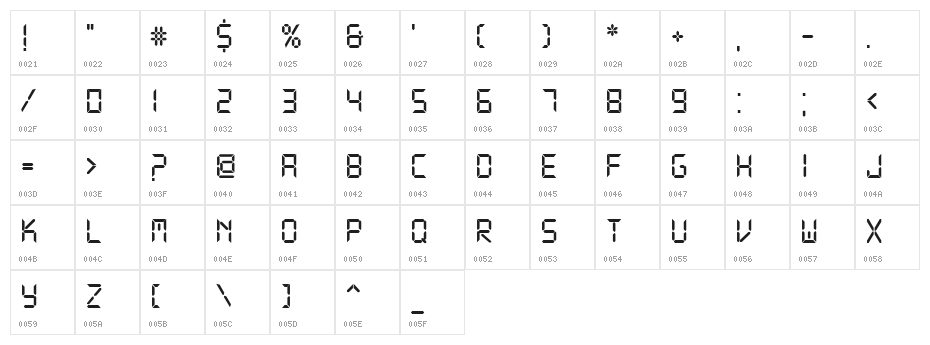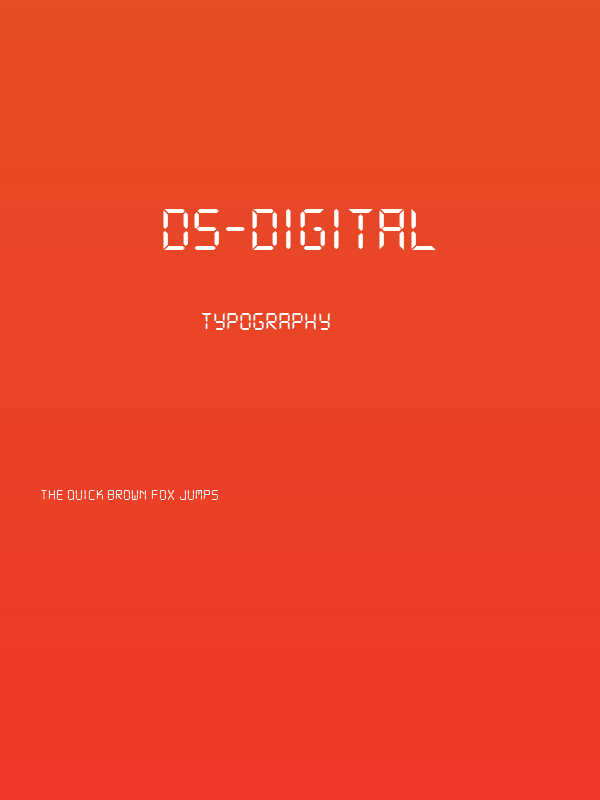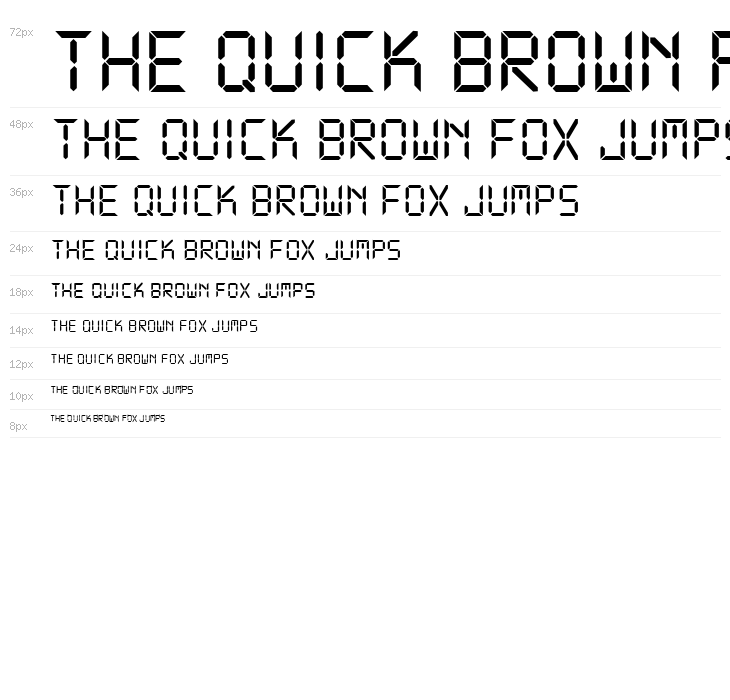
DS-Digital Font
DS-Digital Description
This font features a digital, segmented style reminiscent of classic LED displays. Each character is composed of distinct segments, creating a geometric and technical appearance. The design is uniform across both uppercase and lowercase letters, as well as numbers and special characters, maintaining a consistent digital aesthetic. The font's angular and blocky structure gives it a futuristic and technological feel, ideal for projects that require a modern and digital look. Its unique style makes it stand out, capturing the essence of retro digital displays while being versatile enough for contemporary use.
| Use Case | Headlines, Logos, Digital displays |
| Proposed Projects | Ideal for digital clocks, tech-themed designs, retro gaming interfaces, and electronic device displays. |